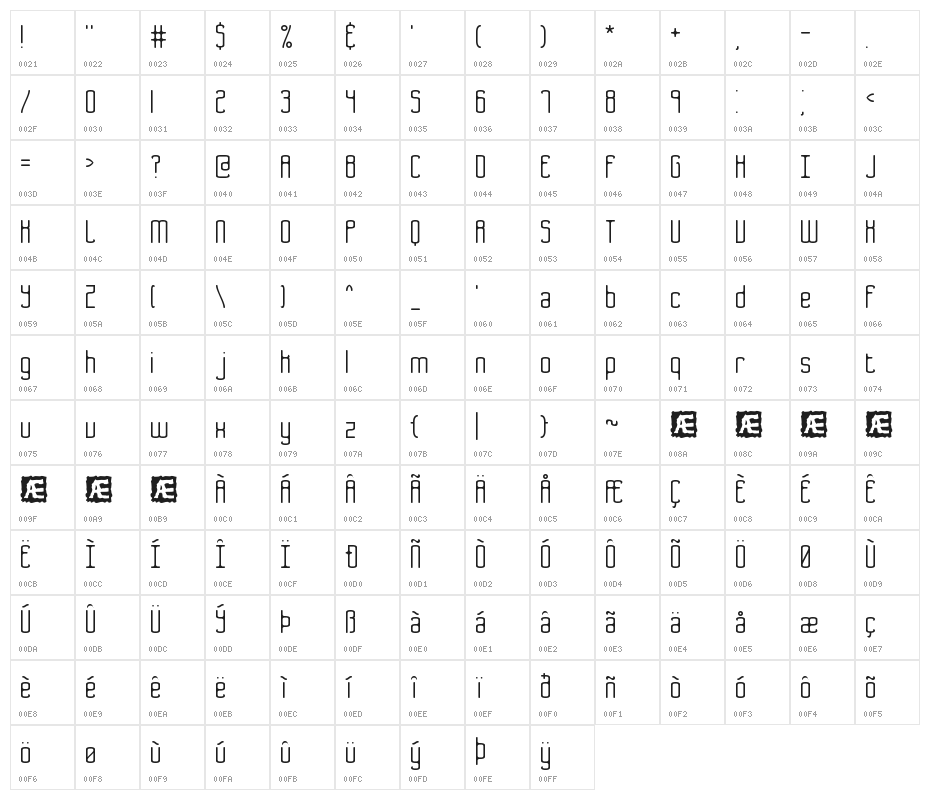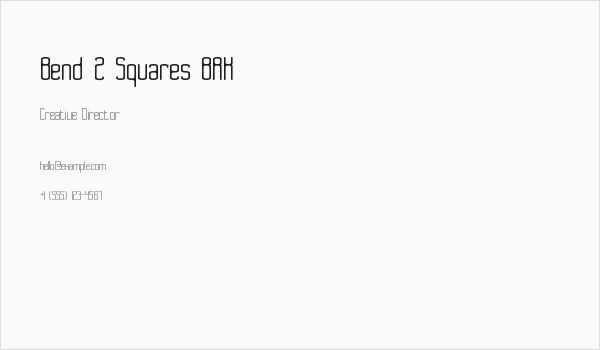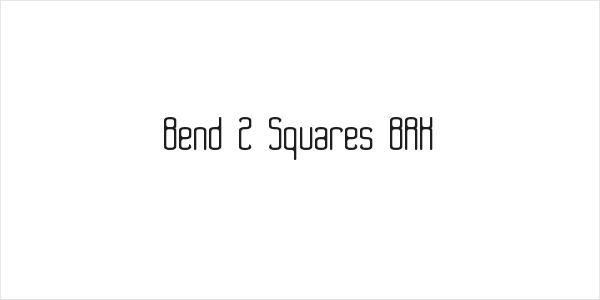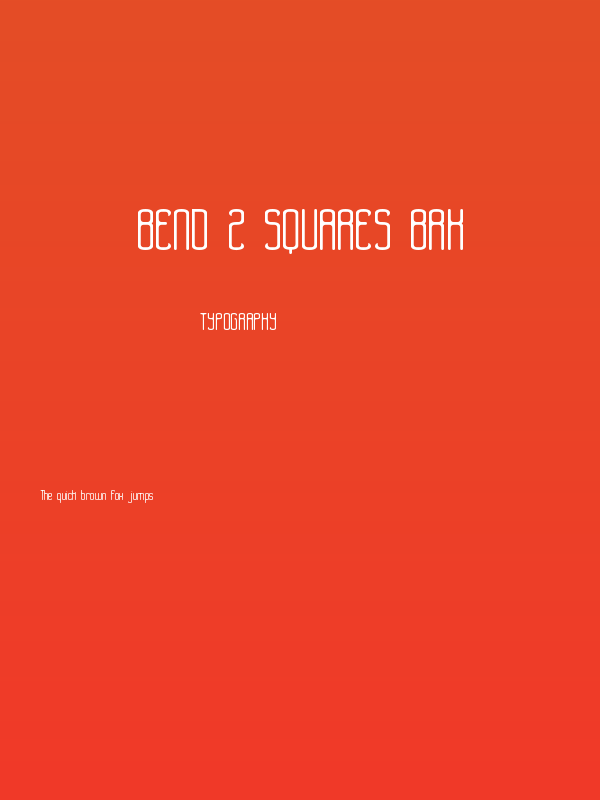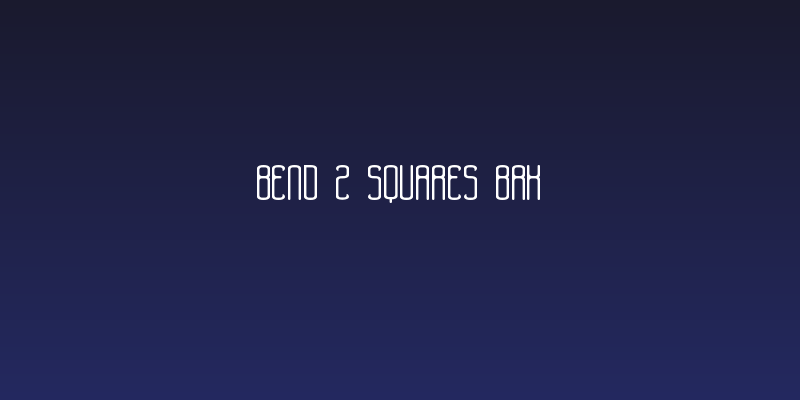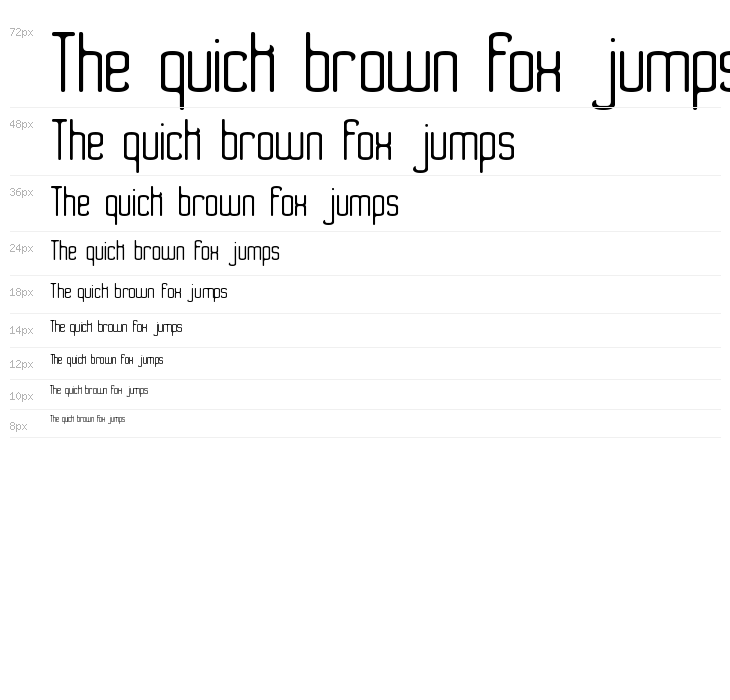
Bend 2 Squares BRK Font
Bend 2 Squares BRK Description
This font features a unique, geometric style with rounded corners and a consistent stroke width, giving it a modern and futuristic appearance. The characters are elongated and narrow, contributing to a sleek and streamlined look. The uppercase and lowercase letters maintain a uniform height, enhancing readability while preserving the font's distinct aesthetic. The numerals and special characters are designed to match the overall style, ensuring cohesion across all elements. This font's clean lines and minimalist design make it suitable for contemporary projects.
Use CaseHeadlines, Logos, Digital interfaces
Proposed ProjectsIdeal for tech branding, modern posters, digital interfaces, and futuristic designs.